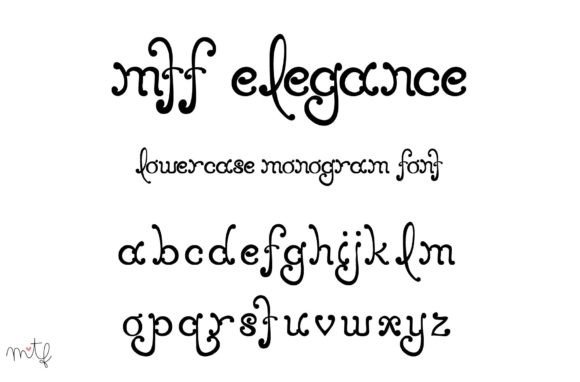
Elegance Font
Introducing Elegance, an exquisite and fantastic handwritten font crafted to complement your fancy projects. With its nicely-rounded and perfectly carved characters, Elegance brings impeccable typography to your designs, adding a touch of sophistication and charm.
The beauty of Elegance lies in its handwritten style, which combines grace and precision. The nicely-rounded characters contribute to the font’s overall refinement, making it a perfect choice for projects that demand a touch of elegance.
Consider using Elegance for upscale projects where a sophisticated aesthetic is key. Whether it’s branding for luxurious items, invitations to fancy events, product packaging for high-end goods, or any project that requires an elevated and polished look, Elegance is poised to deliver.
Imagine Elegance gracing a brand logo, where its exquisite characters communicate a sense of refinement and attention to detail. Picture it on invitations for a black-tie affair, setting the tone for an elegant event. Envision it on product packaging, where its fantastic handwritten style adds a touch of luxury to the presentation.
In summary, Elegance is not just a font; it’s a design element that brings a level of sophistication to your projects. Its exquisite and fantastic handwritten style makes it suitable for a range of applications, from branding to event invitations. Let Elegance be the font that elevates your designs with its impeccable typography, making them stand out with a touch of refined charm.